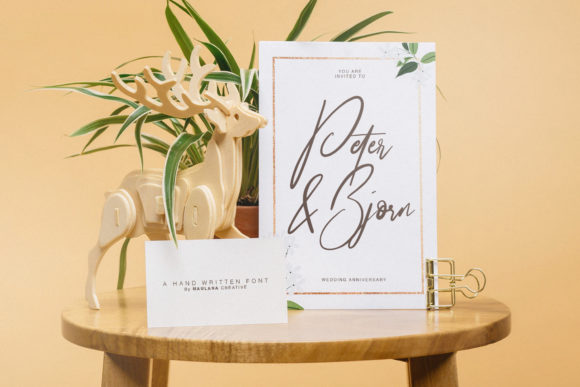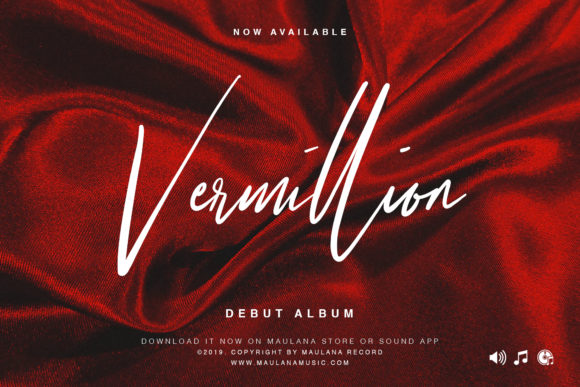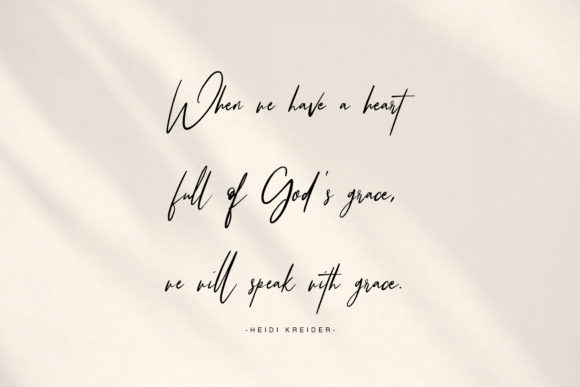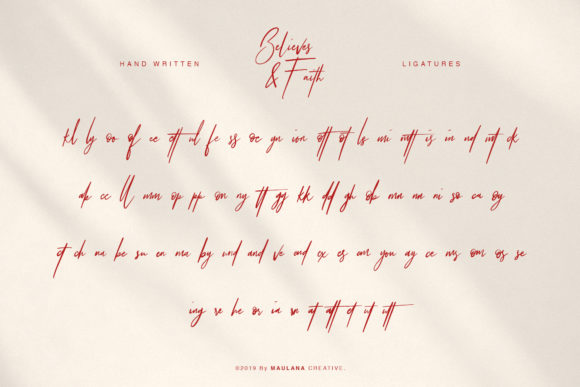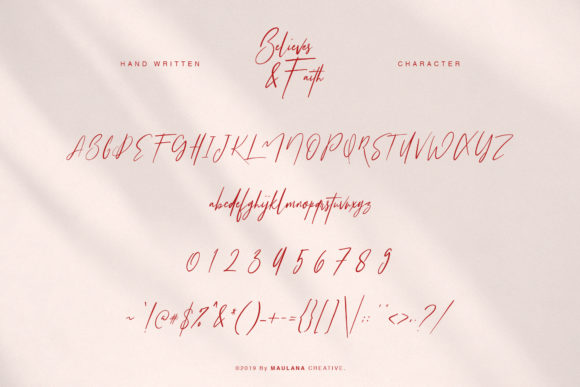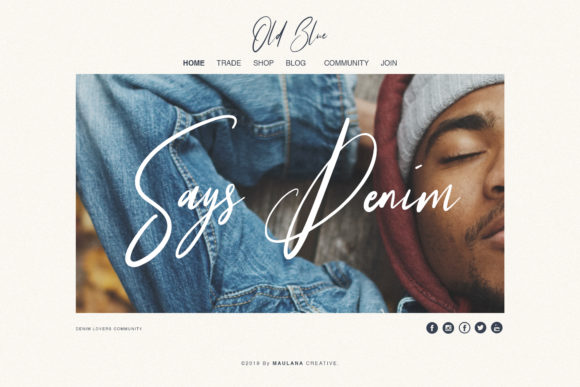
Believes and Faith Font: Elevate Your Designs with Authentic Handcrafted Elegance
Are you a designer or crafter looking to add a touch of authenticity and handcrafted charm to your projects? Look no further than the Believes and Faith font. This stunning crafting font combines smooth lines and simple elegance, making it the perfect addition to your design toolkit.
The Power of Handcrafted Fonts
In today’s digital age, it’s easy to get lost in a sea of generic, computer-generated fonts. But if you’re looking to create something truly special and unique, you need a font that speaks to the human touch. Handcrafted fonts like Believes and Faith offer a level of character and personality that is hard to replicate with standard fonts.
With a handcrafted font, you can add a sense of warmth and personality to your designs. Whether you’re creating a logo, crafting a brand identity, or designing a one-of-a-kind project, a handcrafted font can help you stand out from the crowd.
What Makes Believes and Faith Font So Special?
So, what sets Believes and Faith apart from other fonts on the market? Here are just a few reasons why this font is a must-have for designers and crafters:
- Smooth Lines: The Believes and Faith font features smooth, flowing lines that give your designs a sense of elegance and sophistication.
- Simple Elegance: This font’s simple, understated design makes it perfect for a wide range of projects, from logos and branding to crafting and DIY projects.
- Authentic Handcrafted Feel: With Believes and Faith, you get a font that truly feels like it was handcrafted with love and care. This font is perfect for adding a personal touch to your designs.
How to Use Believes and Faith Font in Your Designs
Now that you know a little bit about the Believes and Faith font, let’s talk about how to use it in your designs. Here are a few ideas to get you started:
- Logos and Branding: Use Believes and Faith to create a unique and memorable logo for your business or brand.
- Crafting and DIY Projects: Add a personal touch to your crafting and DIY projects with this beautiful handcrafted font.
- Stationery and Invitations: Use Believes and Faith to create custom stationery, invitations, and other paper goods that are sure to impress.
Tips for Getting the Most Out of Believes and Faith Font
Here are a few tips for getting the most out of the Believes and Faith font:
- Experiment with Different Sizes: Try out different font sizes to see how Believes and Faith looks in different contexts.
- Pair it with Other Fonts: Don’t be afraid to pair Believes and Faith with other fonts to create a unique and interesting look.
- Use it in Combination with Images: Use Believes and Faith in combination with images or illustrations to add an extra layer of depth and interest to your designs.
Whether you’re a seasoned designer or just starting out, Believes and Faith is a font that is sure to inspire. So take a closer look, and see how this beautiful handcrafted font can help you bring your creative vision to life.